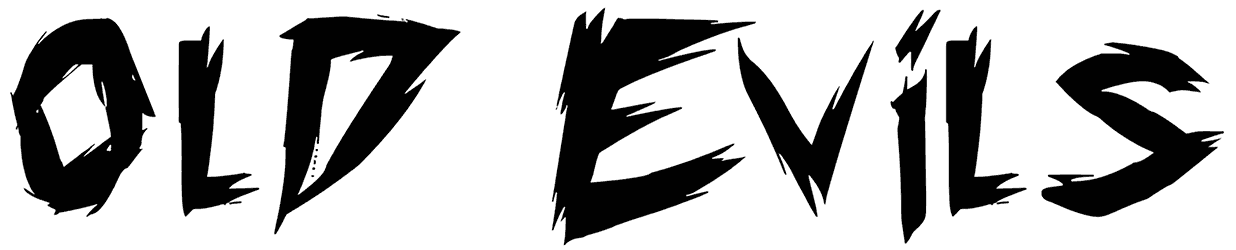
Old Evils Font
Old Evils is an astonishing font that grabs your attention at first glance. This evil font has a frightening style that seems memorable. You may use the Old Evils font in various cases, such as posters, movie or video game titles, and print on T-shirts.
However, this font does not support lowercase letters and symbols. The Old Evils font’s letters seem written fast with a brush and have sharp edges that feel horrifying, so download it without hesitation.